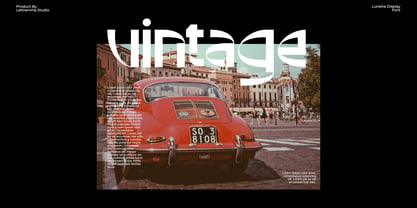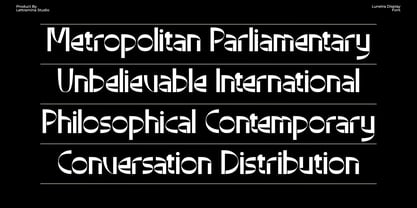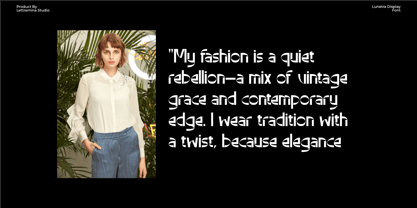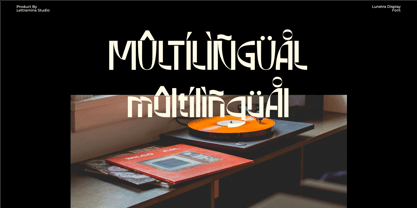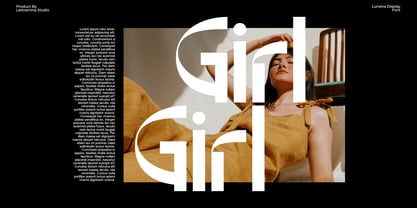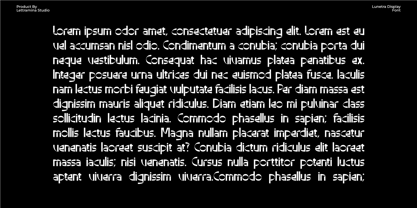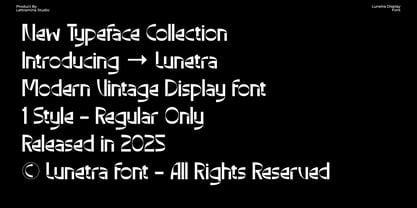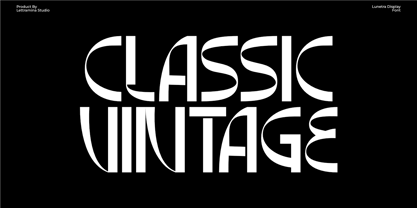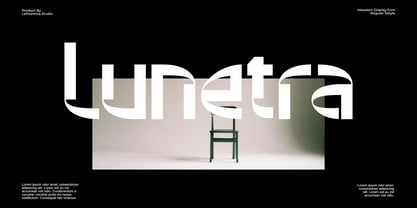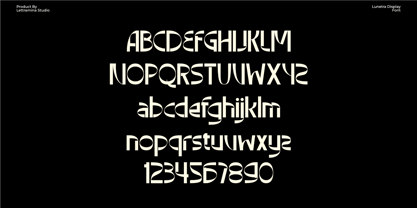
Lunetra
by Lettramina Studio
The Lunetra Font Family was designed by Mukshal Mina and published by Lettramina Studio. Lunetra contains 1 styles. More about this family
Lunetra is a modern vintage display font that blends timeless elegance with contemporary flair. Designed with smooth curves, sharp edges, and a sense of confident femininity, Lunetra is perfect for fashion branding, editorial headlines, logo designs, and luxury packaging.
Released in 2025, Lunetra features a single Regular style, making it simple yet striking in its expression. Whether you're creating minimalist lookbooks or bold typographic posters, Lunetra brings refined charm and unique identity to your project.
Designers: Mukshal Mina
Foundry: Lettramina Studio